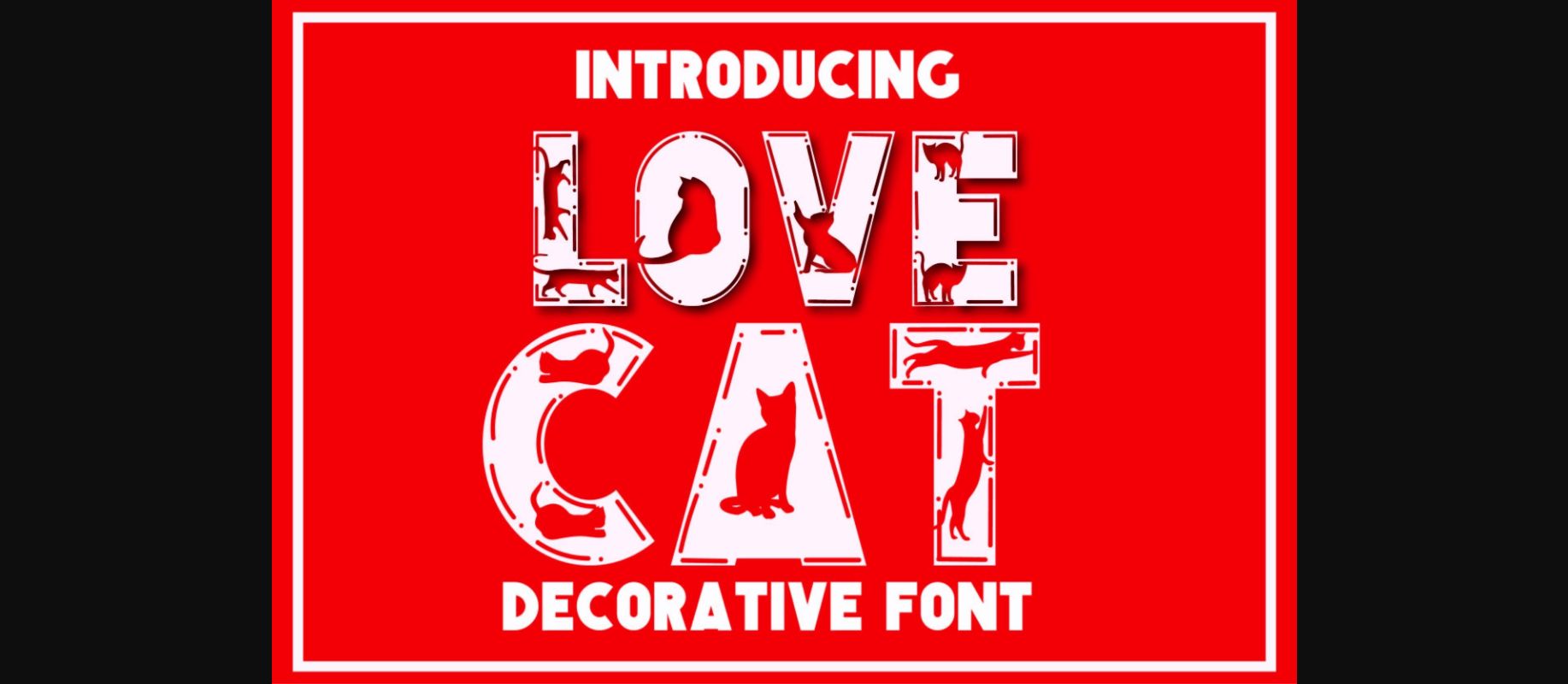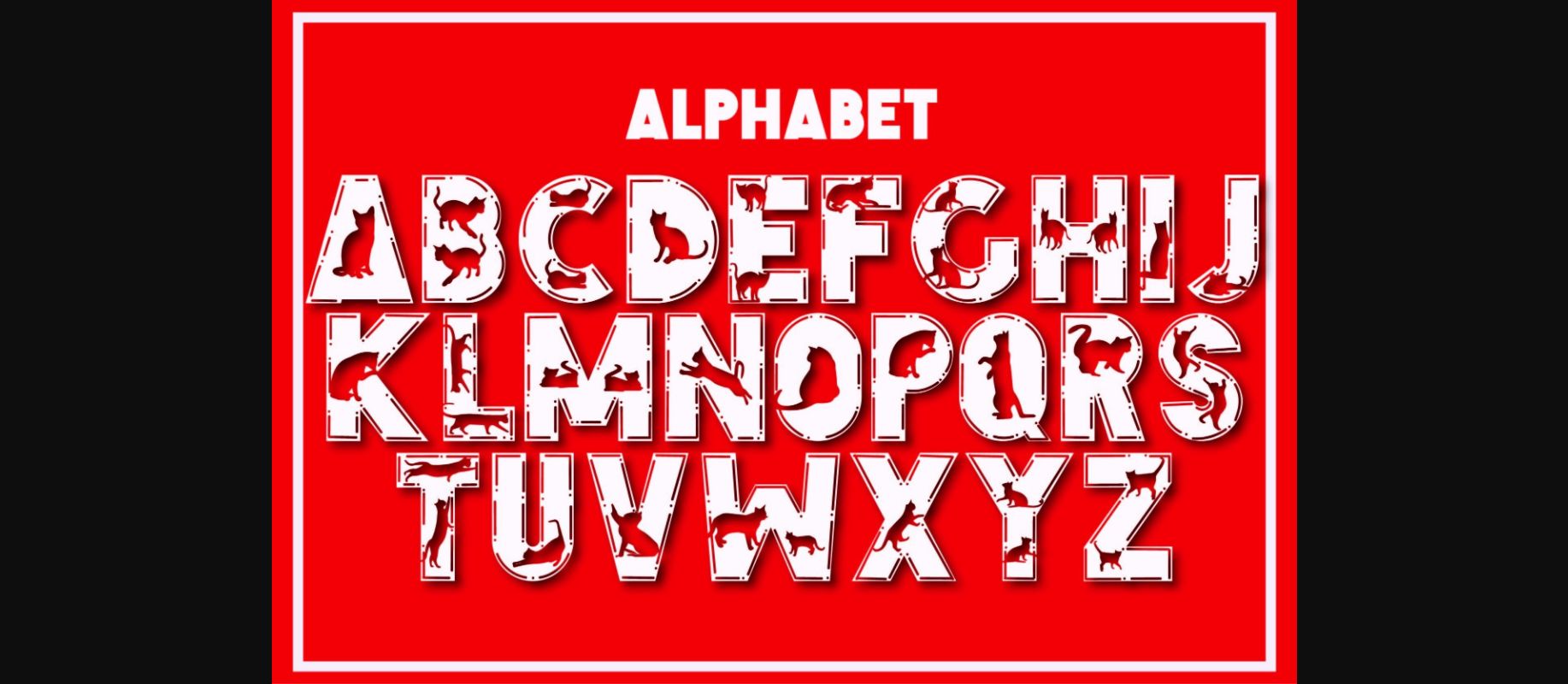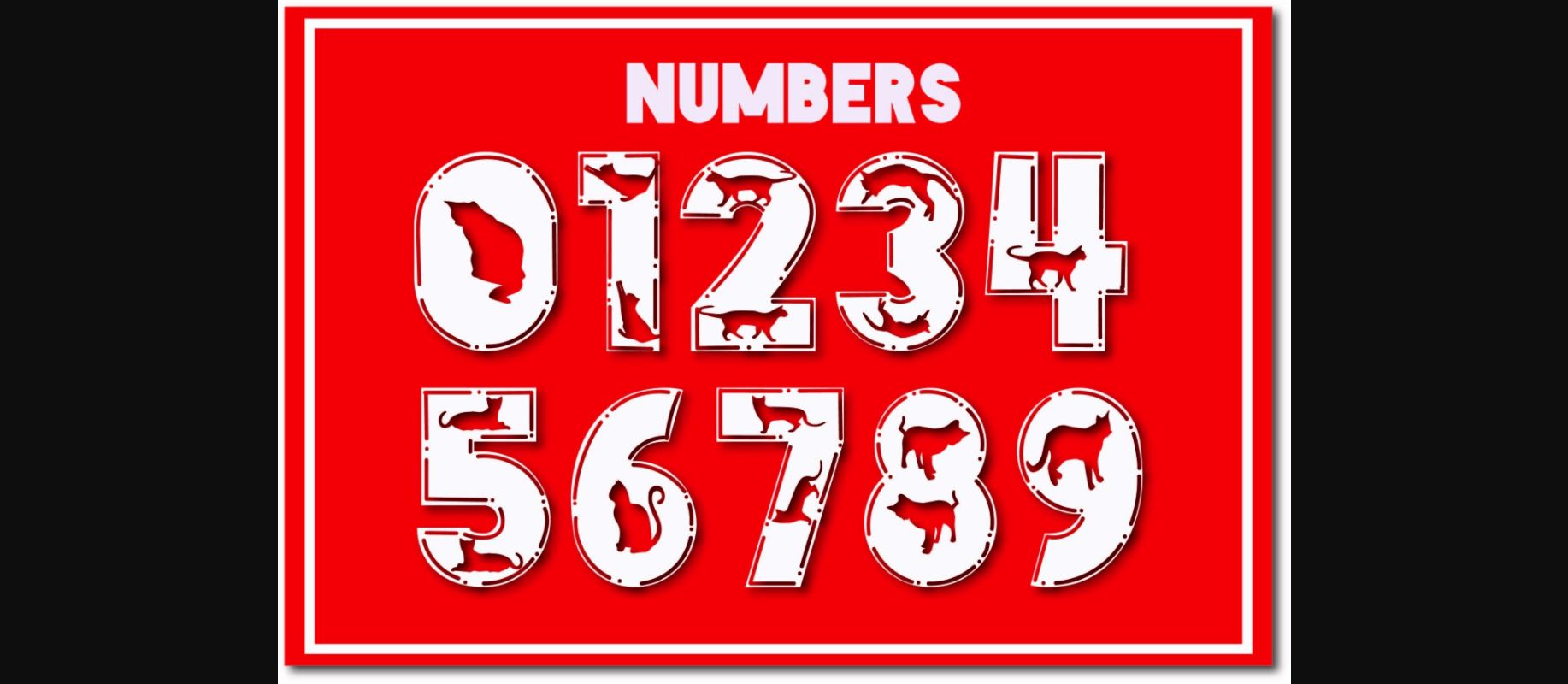
Love Cat is a cool and friendly decorative font. Whether you use it for cartoon-related designs, children’s games, or just any creation that requires a lovely touch, this font will be an amazing choice.